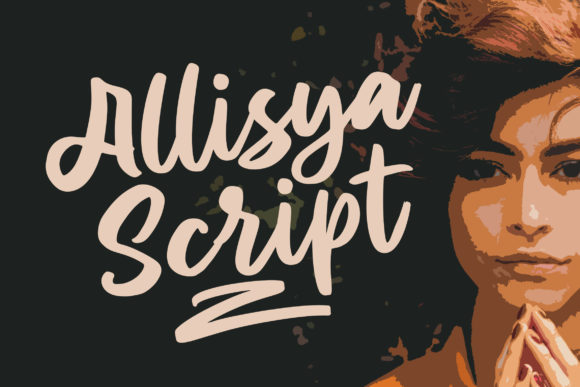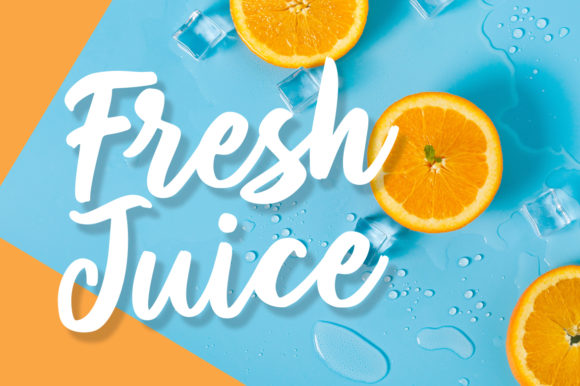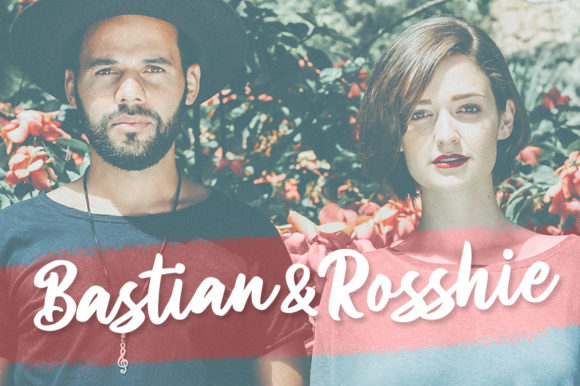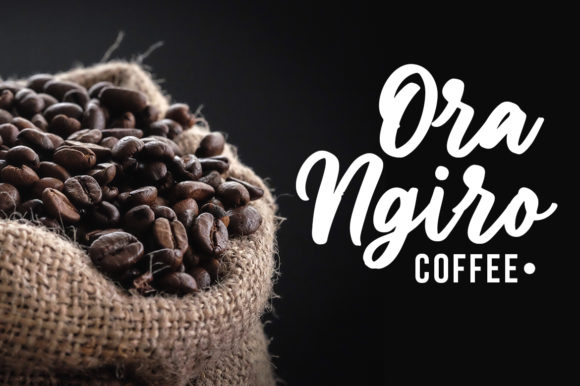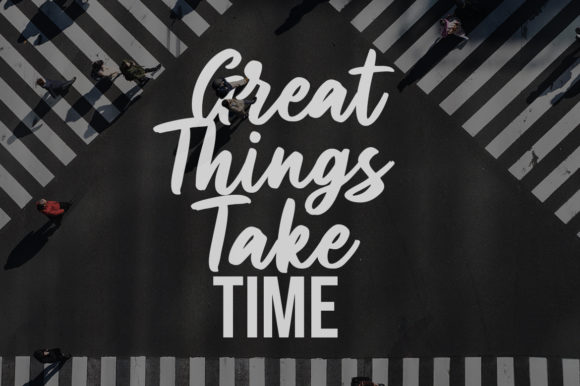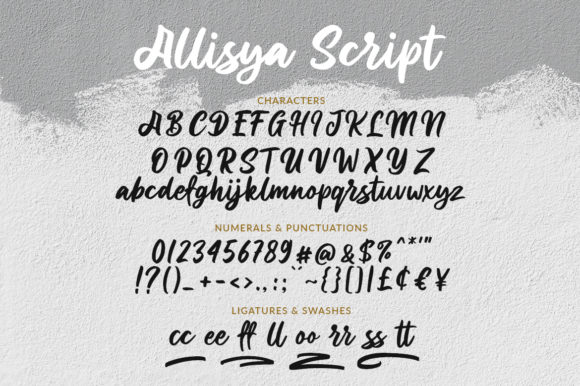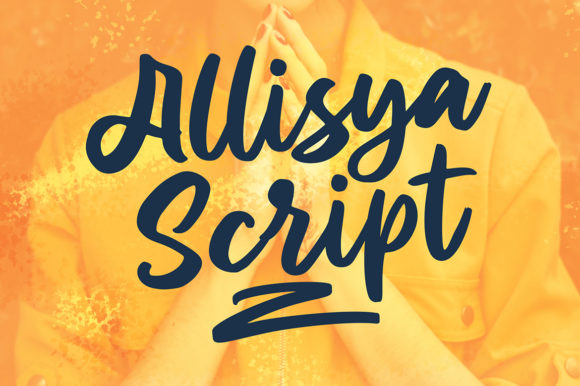
HomeScript FontsAllisya Font Script Fonts Allisya Font FacebookXPinterestWhatsApp Allisya Font Poster 2 Allisya Font Poster 3 Allisya Font Poster 4 Allisya Font Poster 5 Allisya Font Poster 6 Allisya Font Poster 7 About Allisya Font Allisya is a classic script font with beautifully rounded letters. Fall in love with its unique style! DOWNLOAD ON CREATIVE FABRICAThis font is sold and delivered by Creative Fabrica. Font Canyon may earn a commission if you buy through this link. People also explored Stylish Yesterday Font Buche De Noel Font Sun Font Plathorn Christmas Font Jennifer Font Yenxelohem Font Qulthum Signature Font Mermaid Font 356 0 TagsAllisya Font Previous articleDellon FontNext articleForest Font LEAVE A REPLY Cancel reply Comment: Please enter your comment! Name:* Please enter your name here Email:* You have entered an incorrect email address! Please enter your email address here Website: Save my name, email, and website in this browser for the next time I comment. Personal Use Free Ayam Bakar Personal Use Free Read more about this font Leorio Personal Use Free Read more about this font Monogram Veg Personal Use Free Read more about this font Doriss Girls Family Personal Use Free Read more about this font BLOG Best Fonts for T-Shirt Design – Top 2025 Picks In 2025, t-shirt design has become more than just fashion—it's a form of self-expression. Whether you're... How to Cut Any Font on Cricut: Convert a Font to SVG (Free) The 10 Best Handwriting Fonts to Add Personality to Your Designs Where to Buy American Fonts Online in 2024